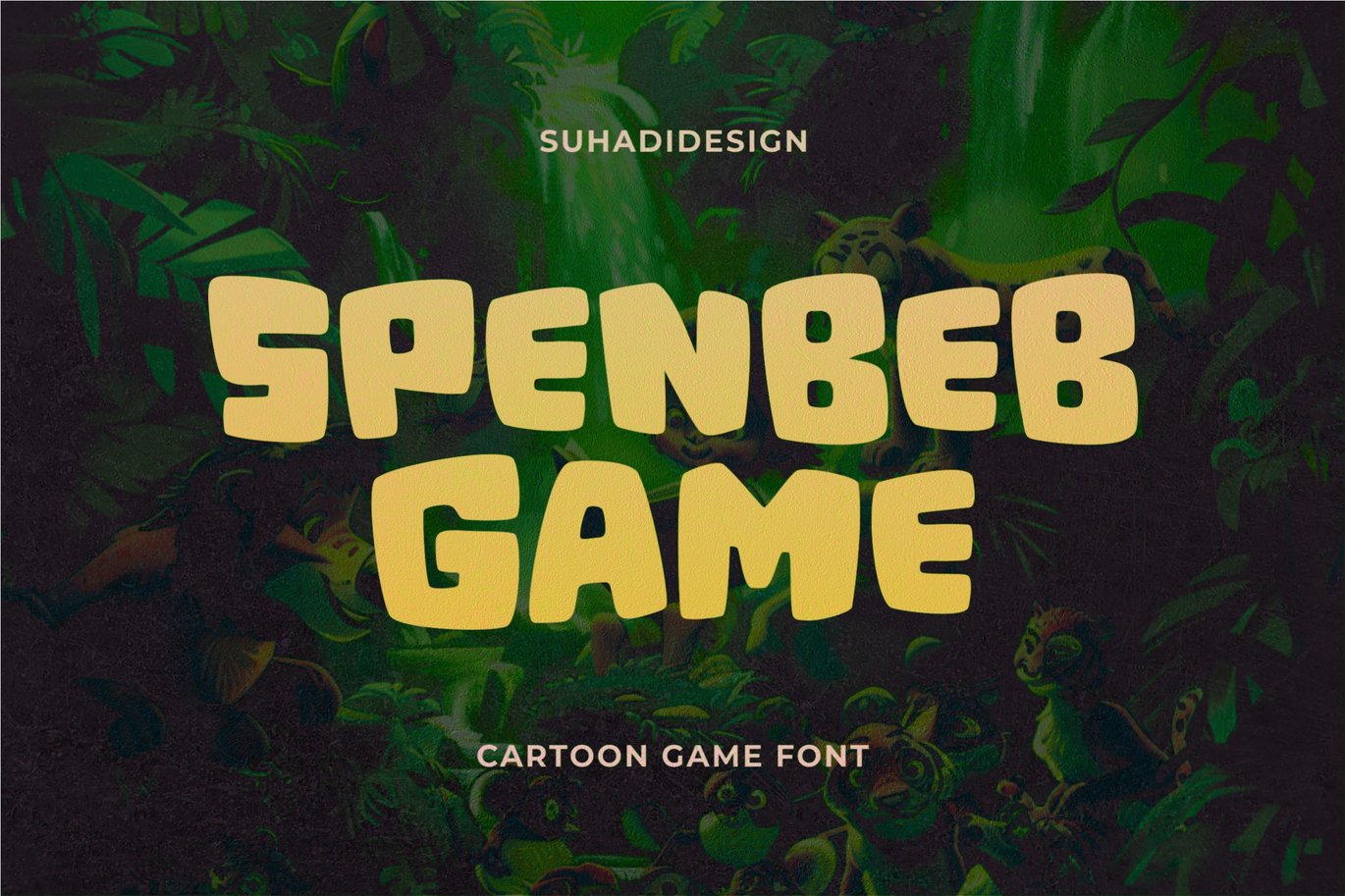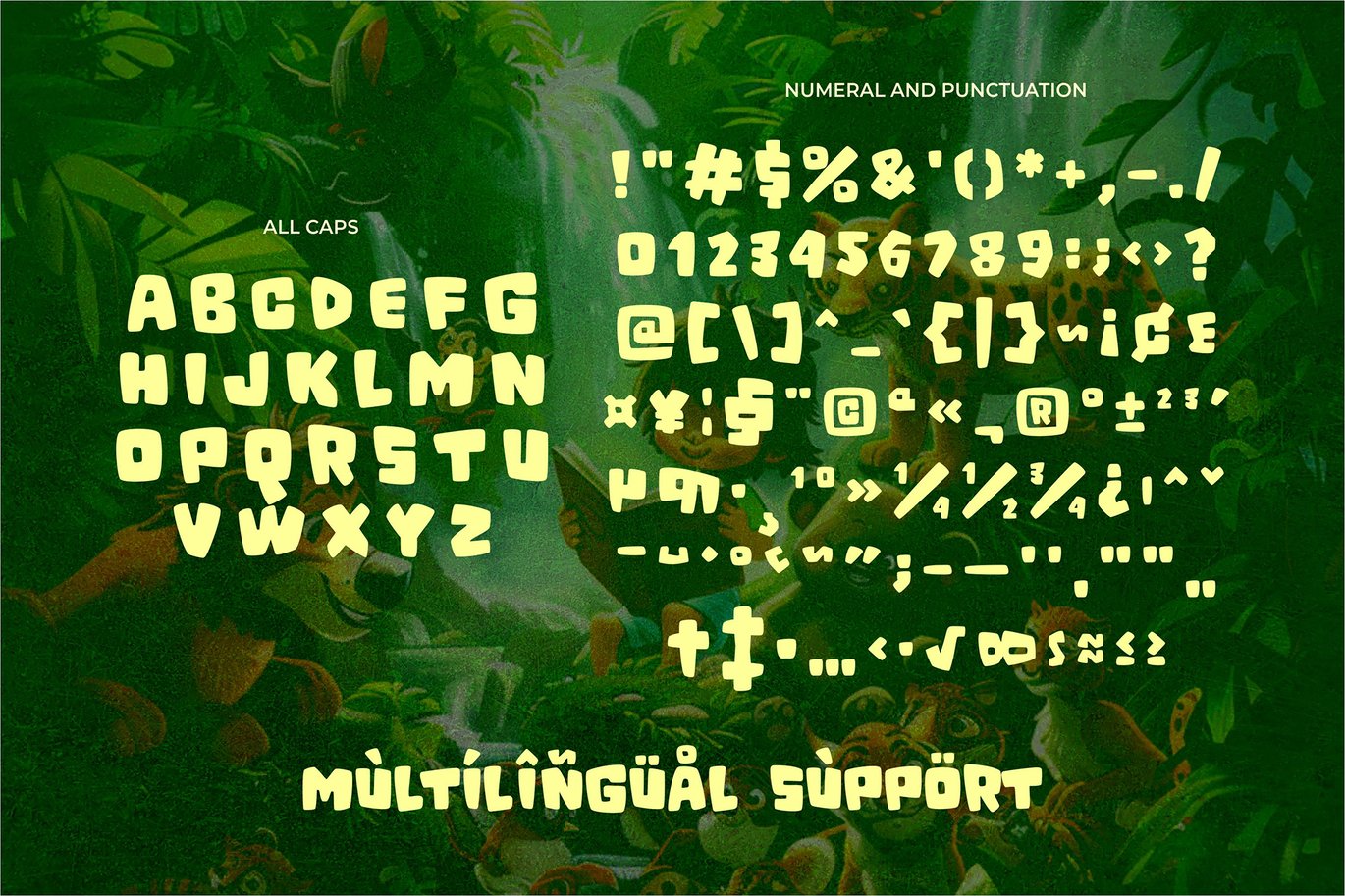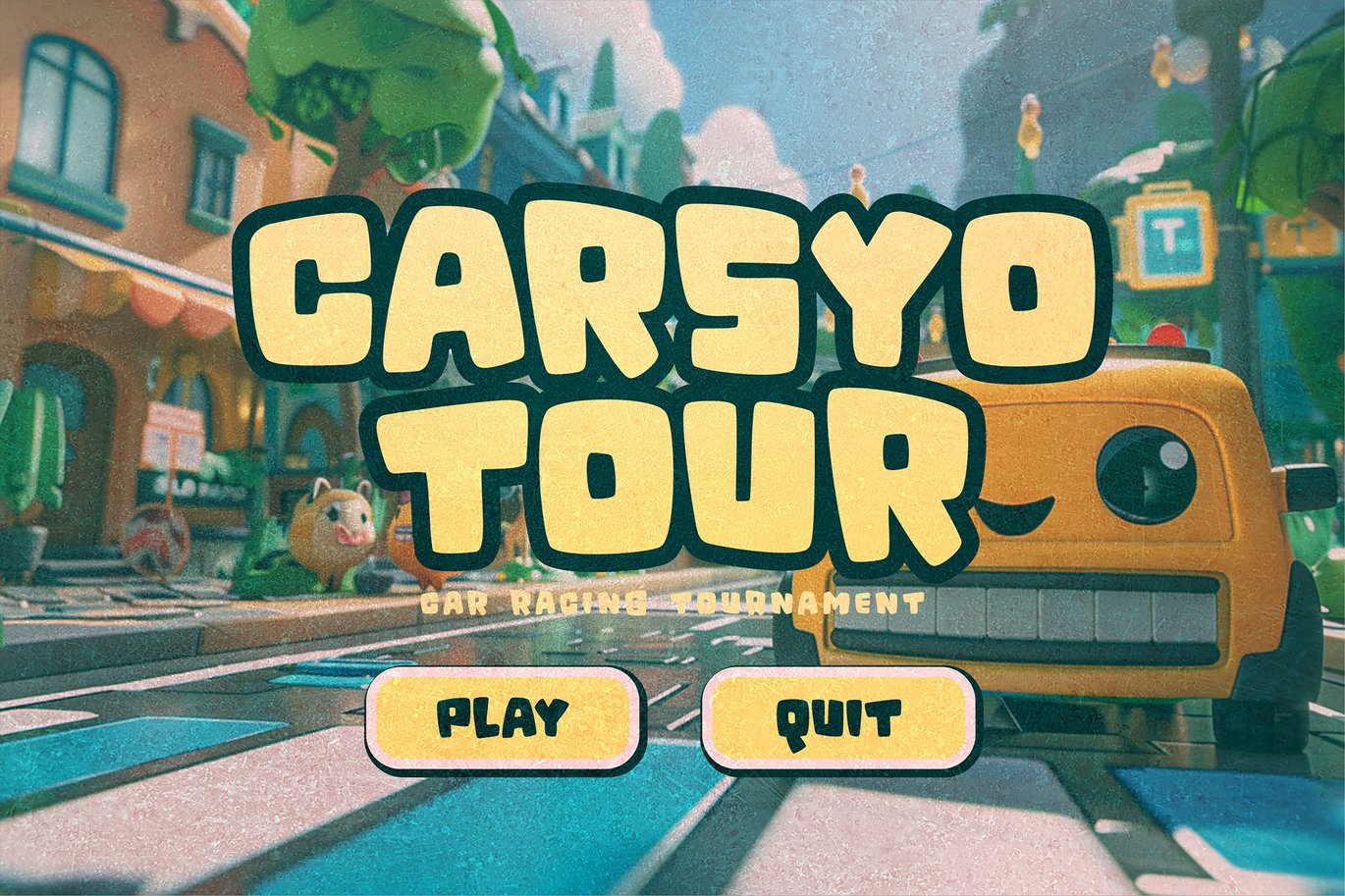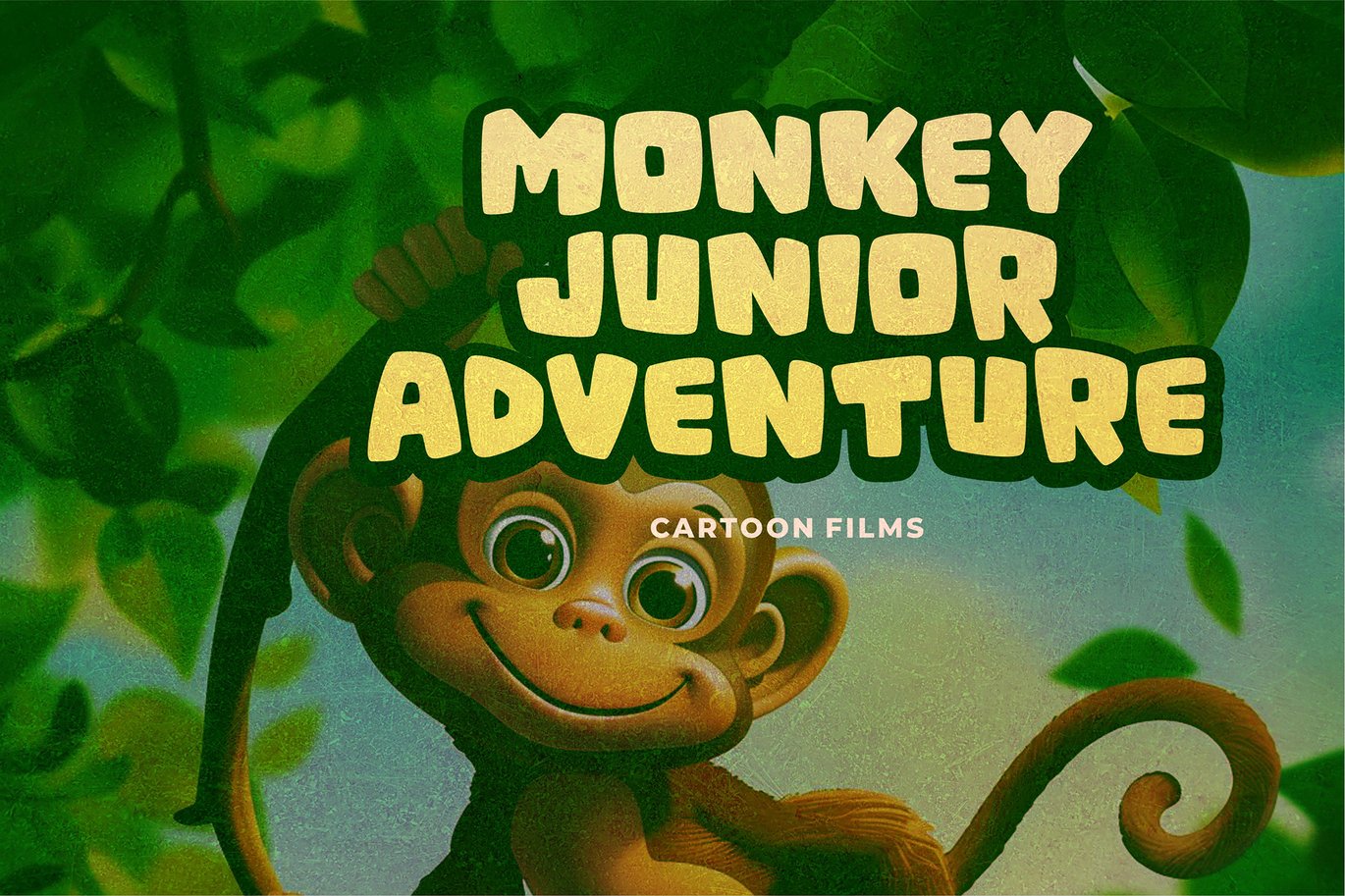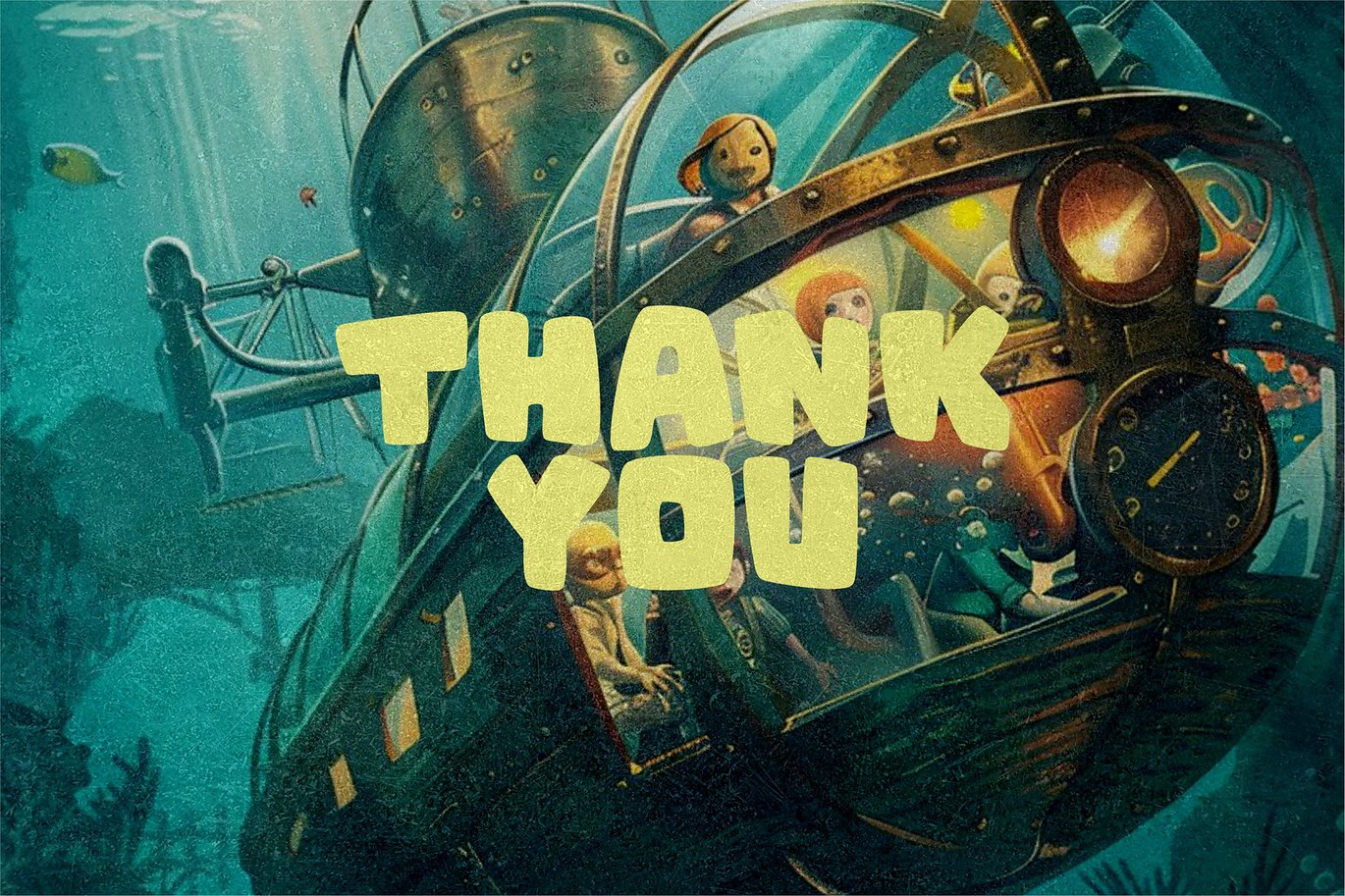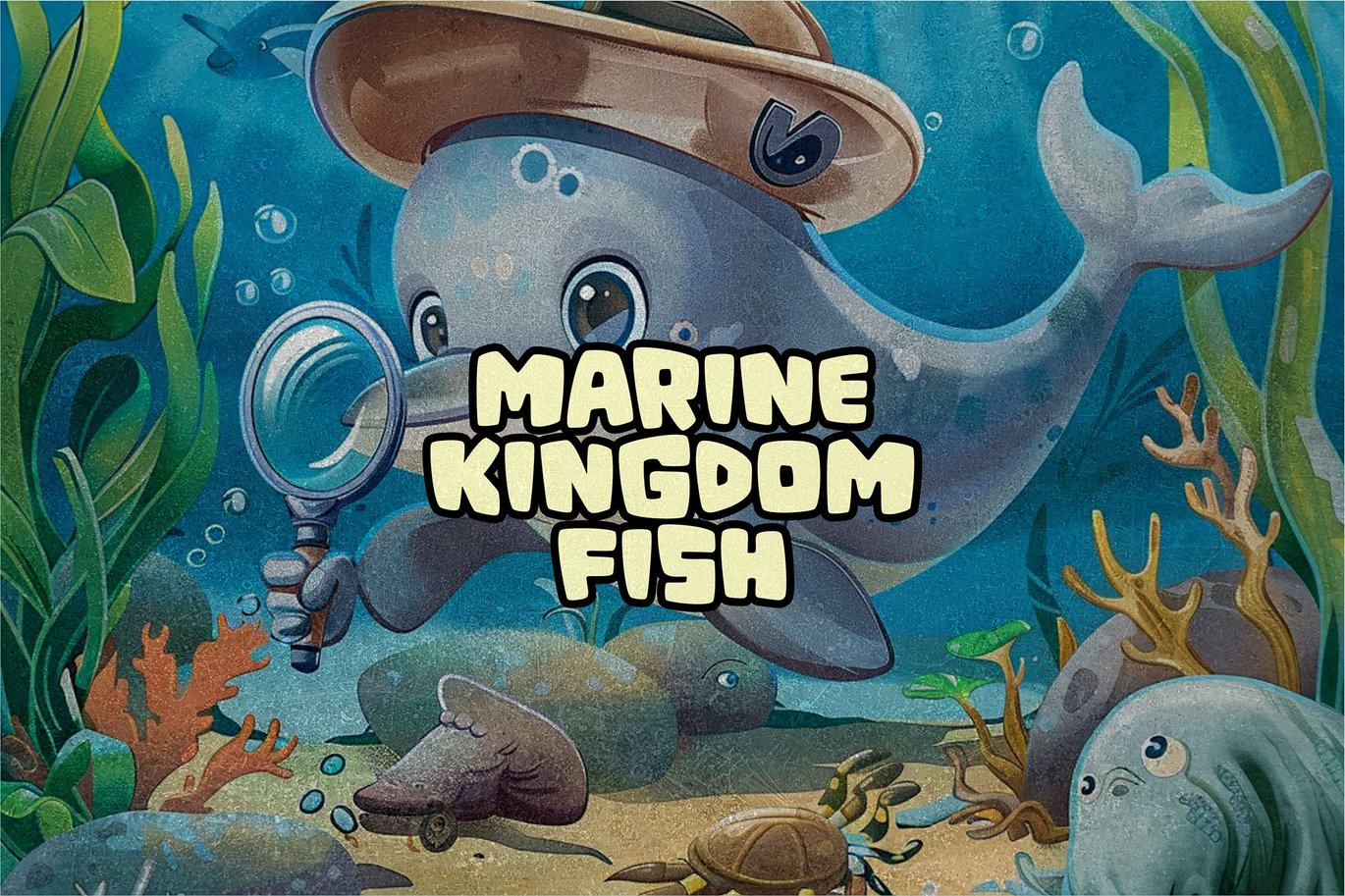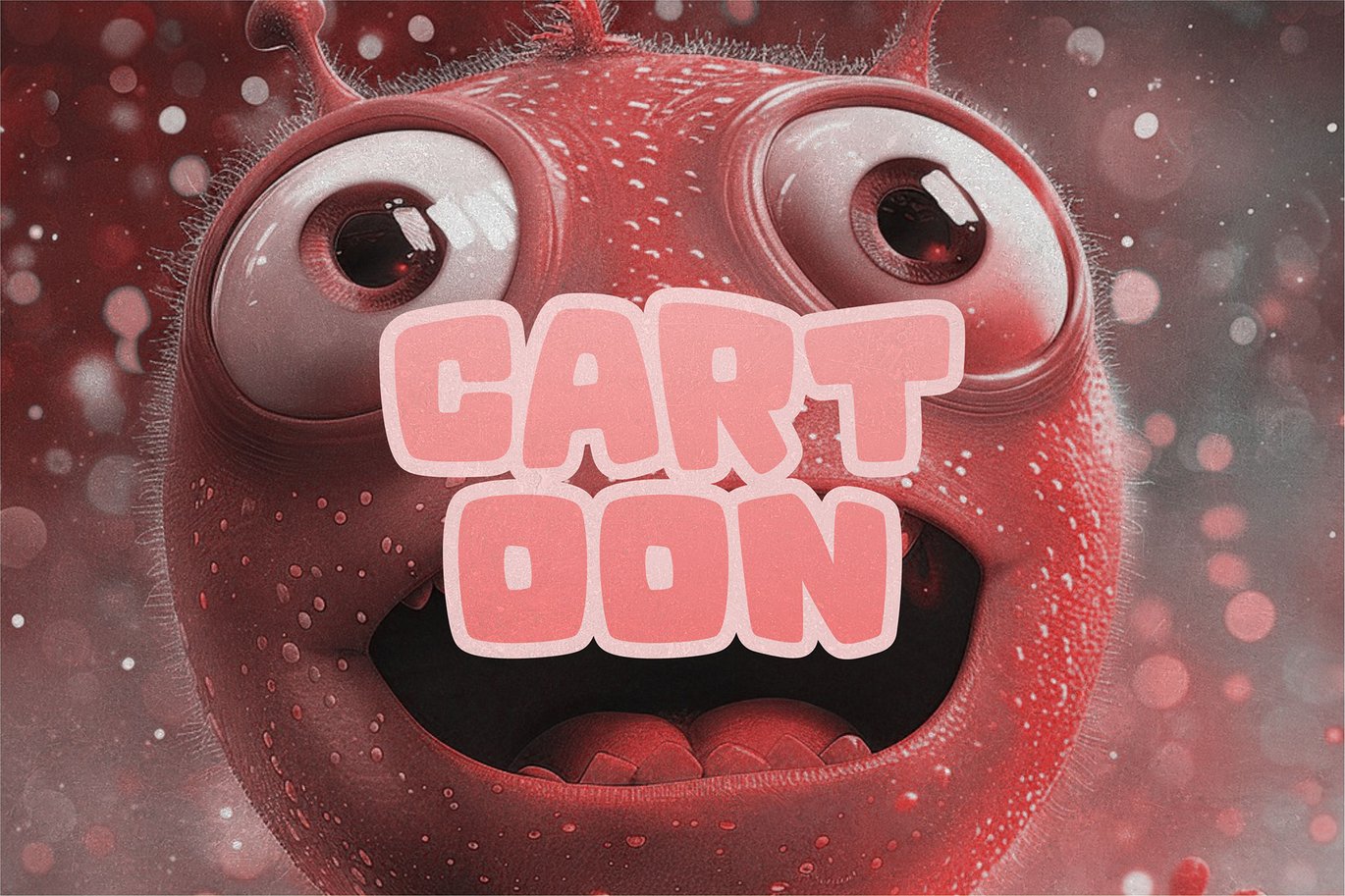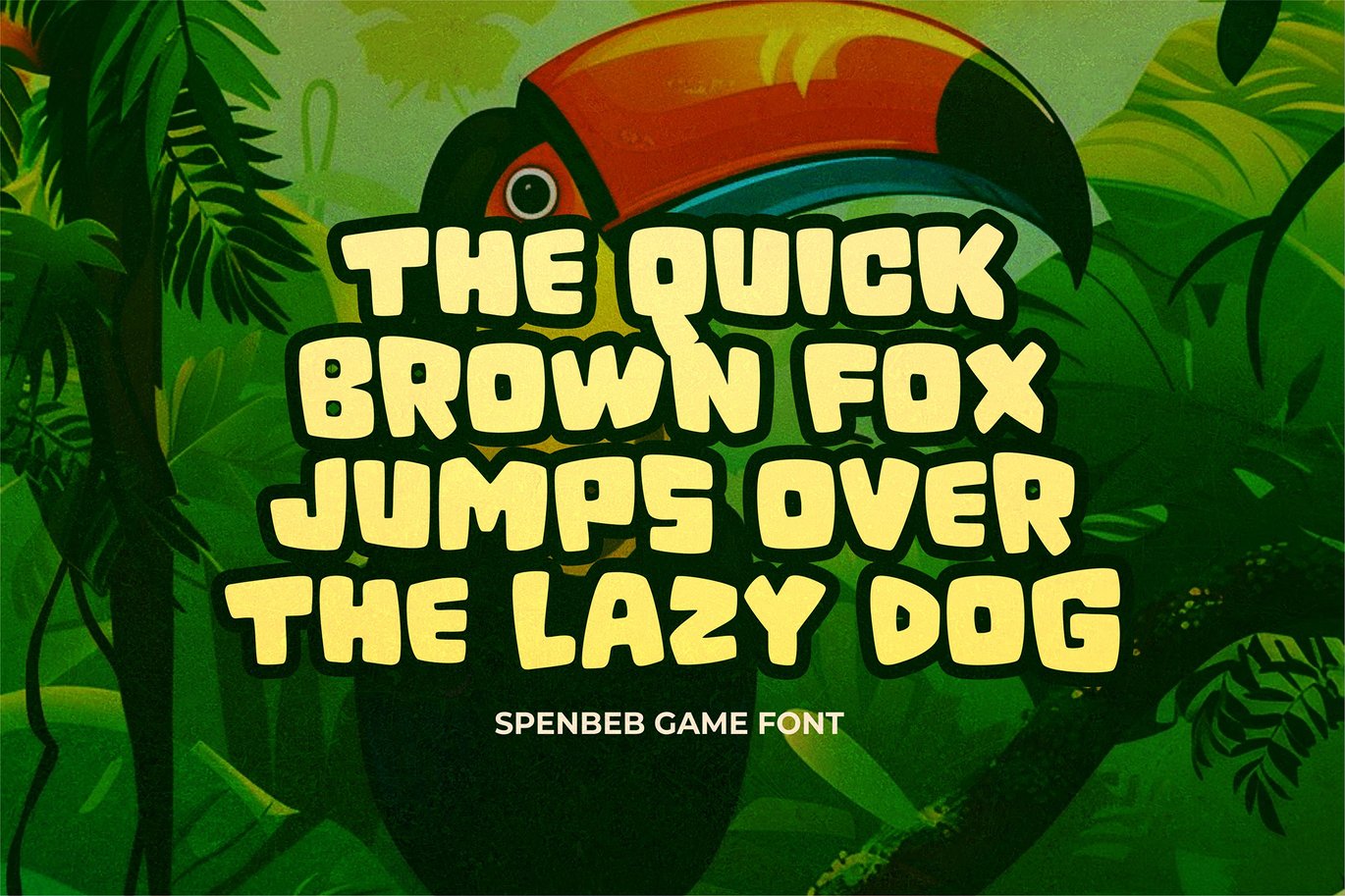
Spenbeb Game Cartoon Font
Hi Ladies and Gentlemen! I had a gamer in mind and I created a font that was suitable for games, especially cartoon themes, this is the Spenbeb Game font. Spenbeb Game font is a Game or Cartoon font. designed to be a market favorite. We make this font look cool, classy, contemporary, stylish, attractive and attractive. Spenbeb Game Font is the right choice for games, game design, game developer, cartoon, kids, babies, children’s films, cartoons, comics, accessories, bags, books and other projects. The Spenbeb Game font is designed to improve the quality of your designs.
Feature:
• All caps style • Multilingual support • Numbers and punctuation